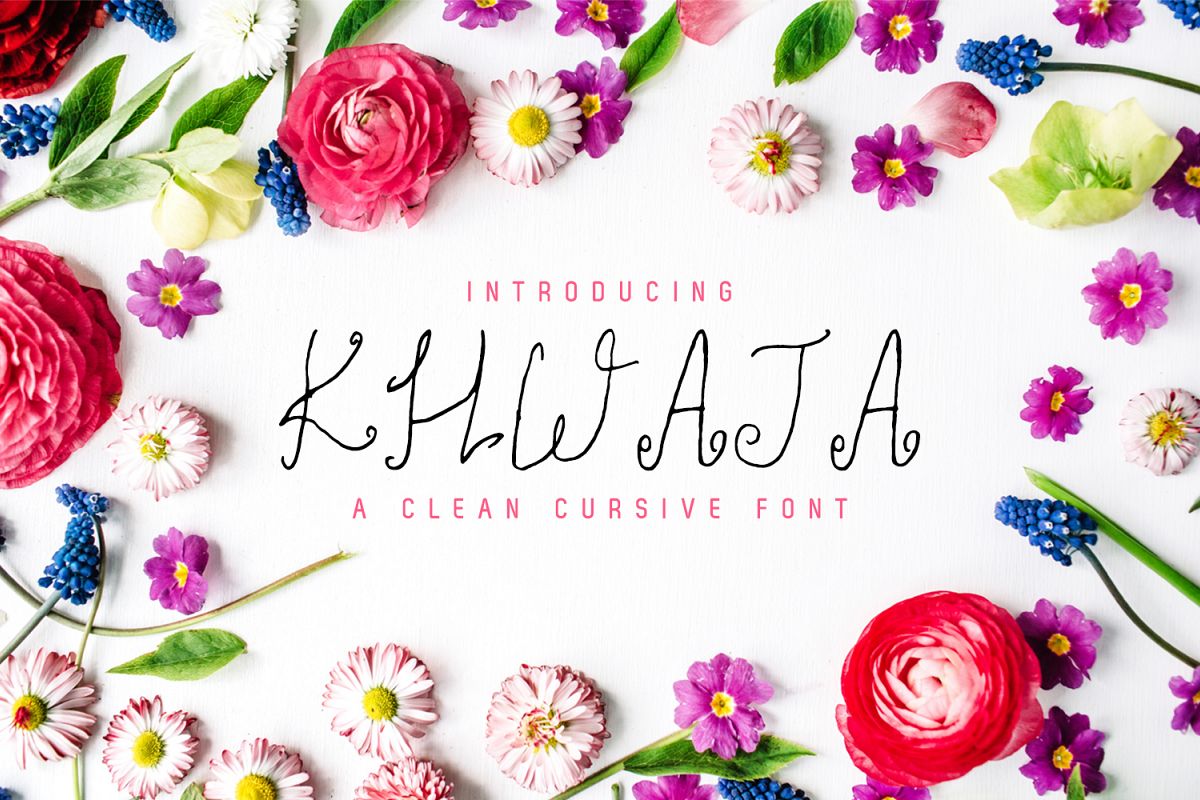
Khwaja Script Typeface
Khwaja-Regular
Khwaja-Italic
Khwaja Script Typeface is a clean & classy beautiful handwritten brush style font that contains 3 weights, it is perfect for creating authentic hand-lettered text quickly & easily. It looks impressive for branding, websites, clean designs, logos, headlines, banners and templates etc. It is in uppercase style only.Included Features:
• Regular and Italic Weights
• Extras: Uppercase Letters and Numbers